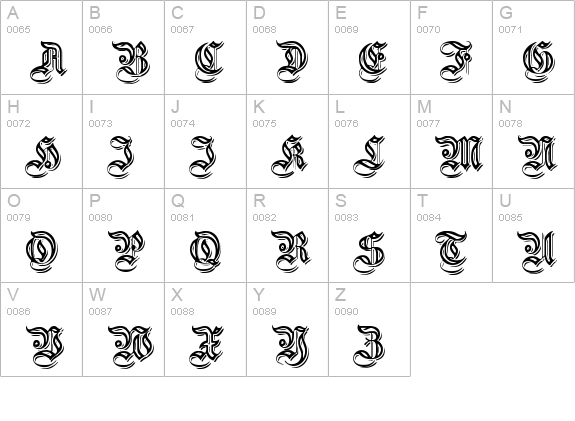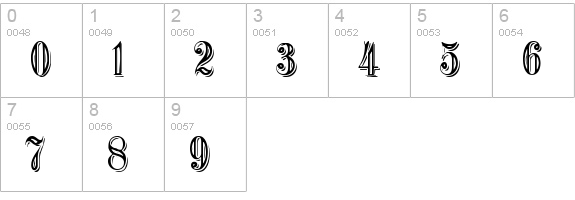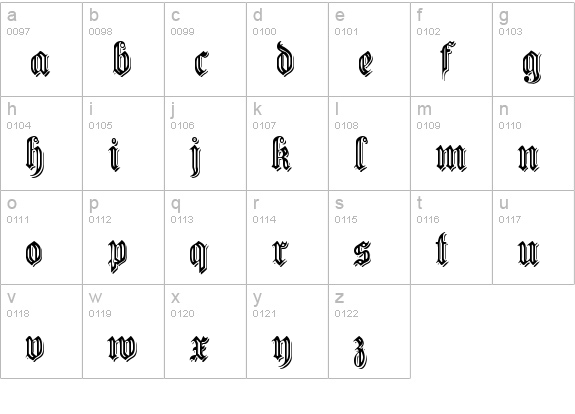
EmbossedGermanica font exudes elegance and sophistication with its unique blend of classic styling and modern flair. Featuring intricate embossed details and distinctive Germanic-inspired letterforms, this font is perfect for adding a touch of refinement to any design project. Whether you're creating invitations, logos, or signage, EmbossedGermanica will elevate your work to the next level. And here's the best part - EmbossedGermanica font is completely free to download at FontsMarket.com! So you can easily enhance your creations with this stunning typeface without breaking the bank. Don't miss out on the opportunity to add a touch of timeless beauty to your designs with EmbossedGermanica font. Download it now and let your creativity shine!